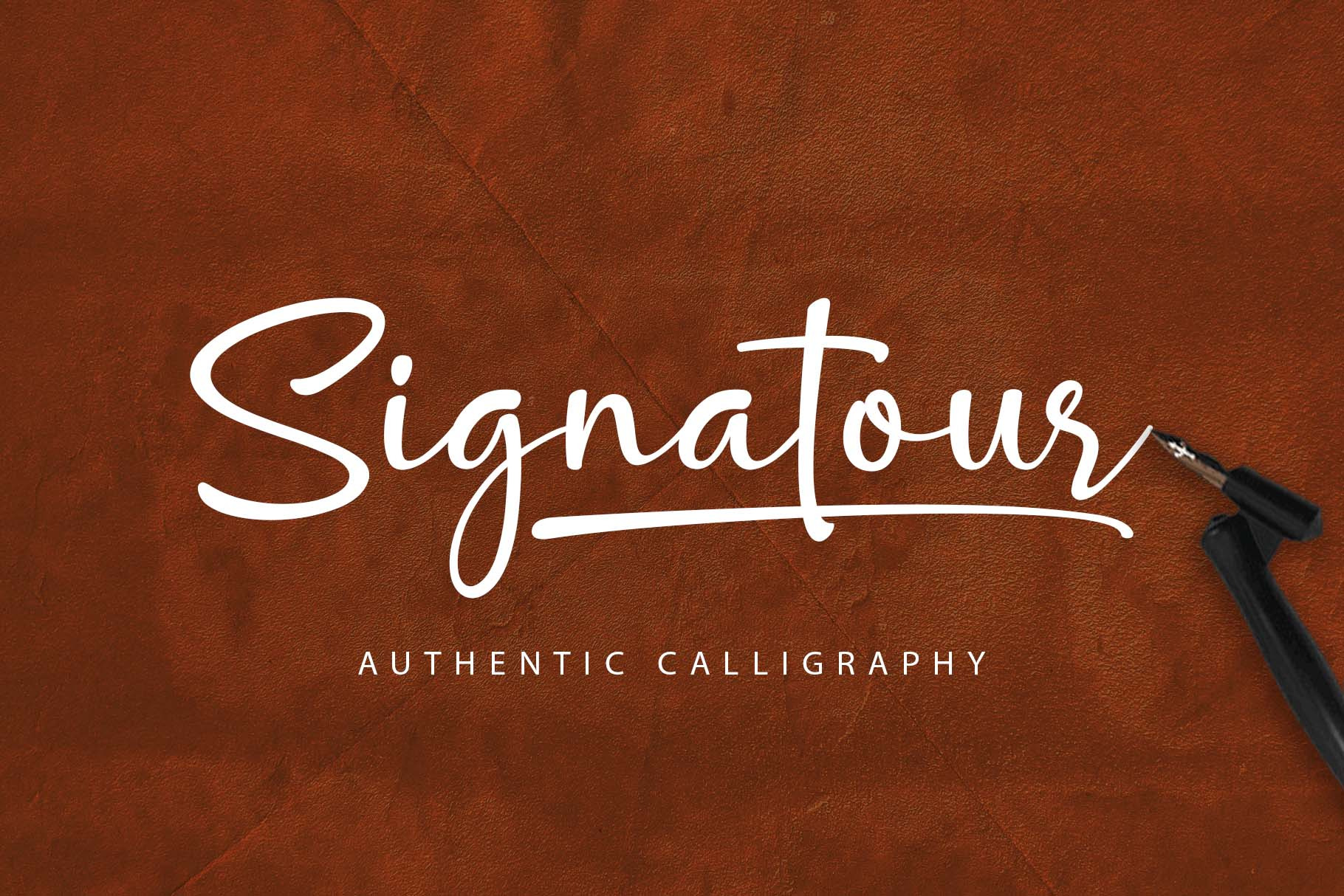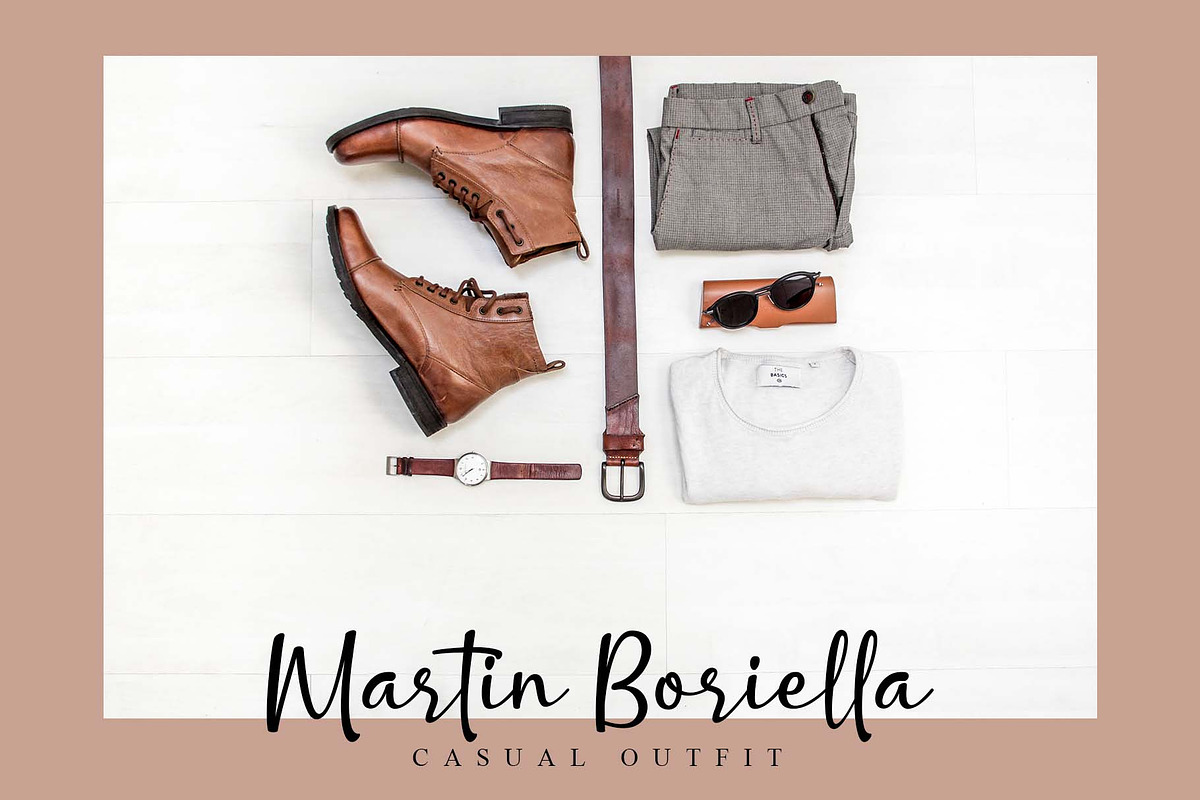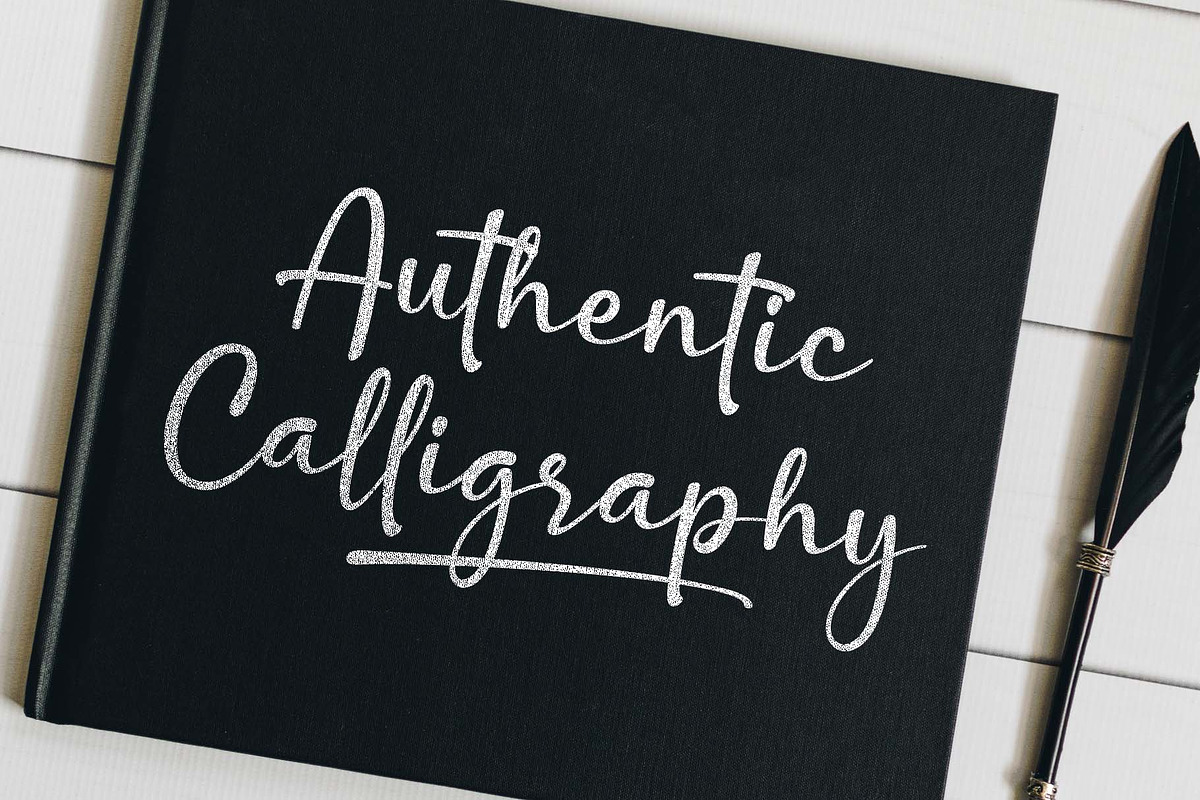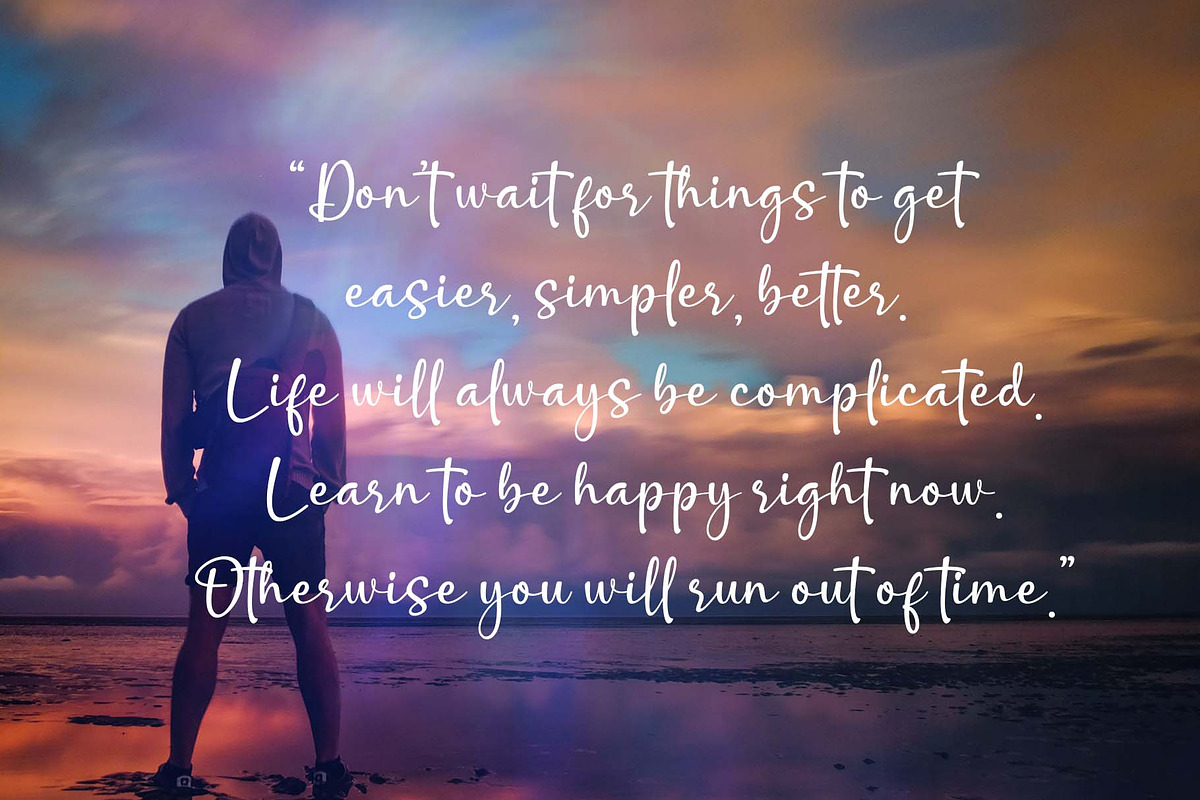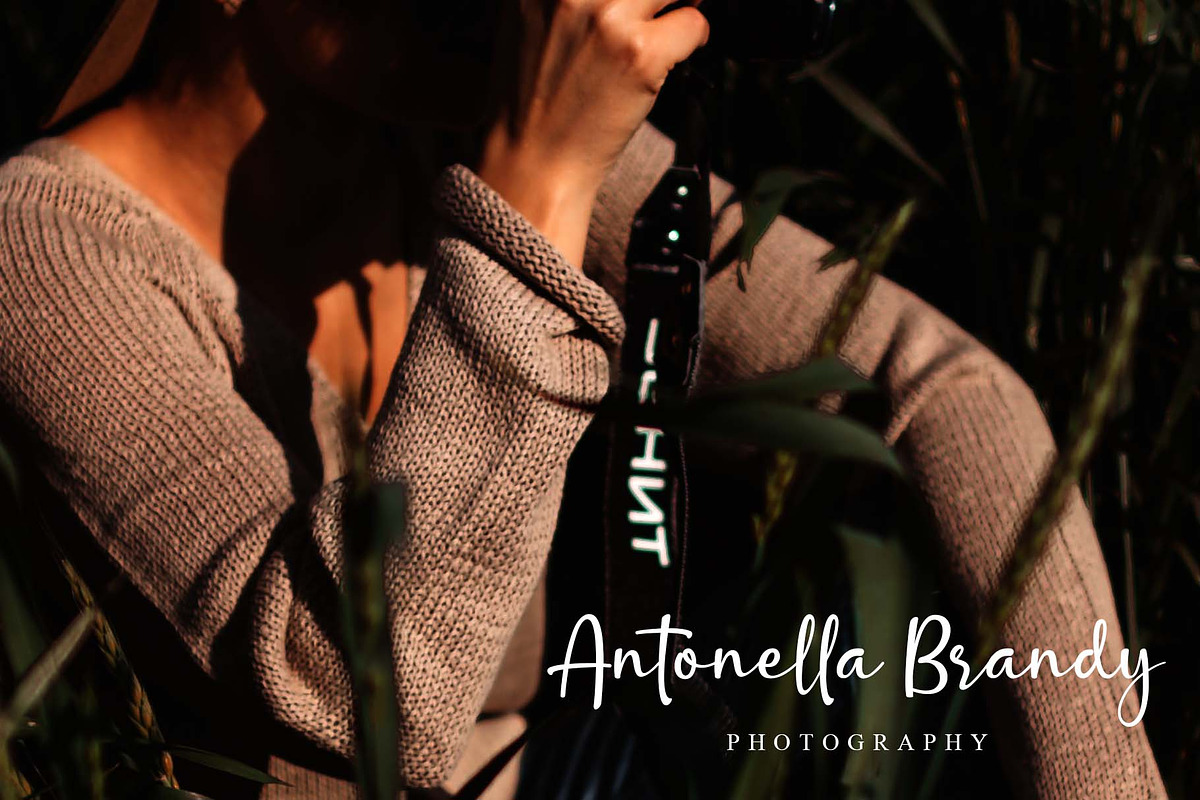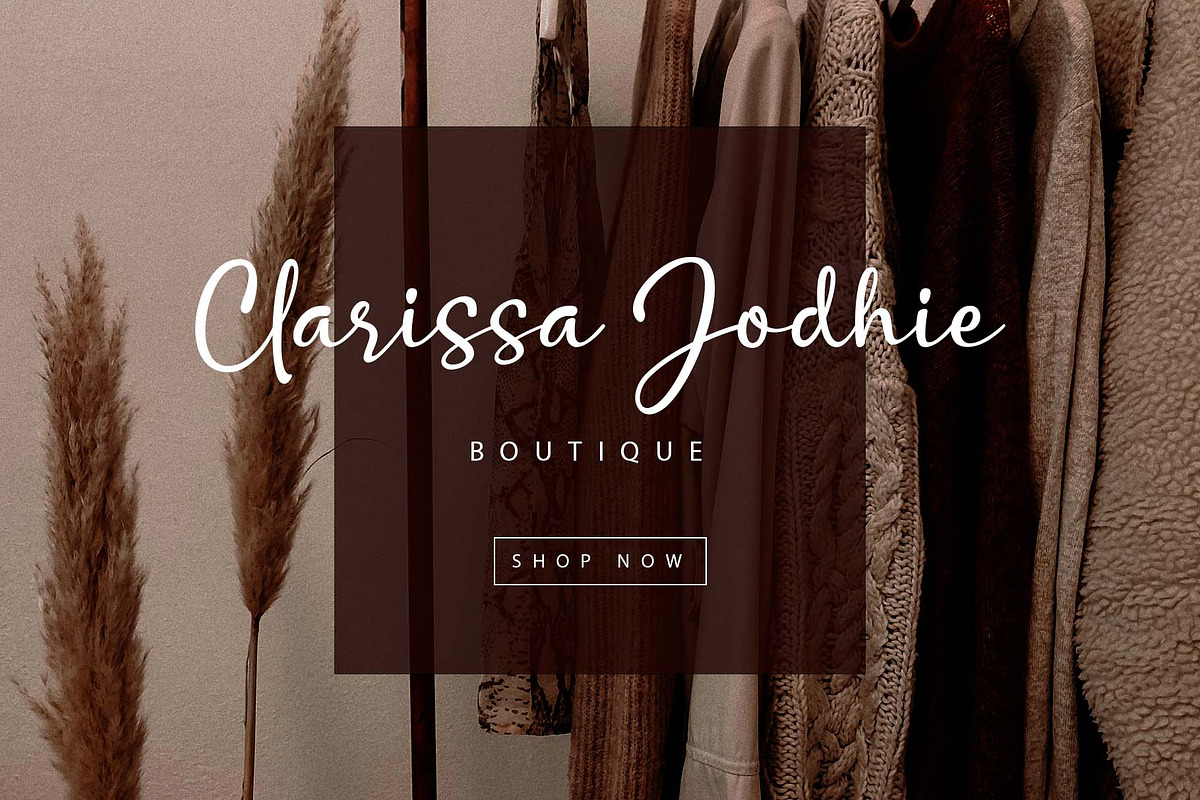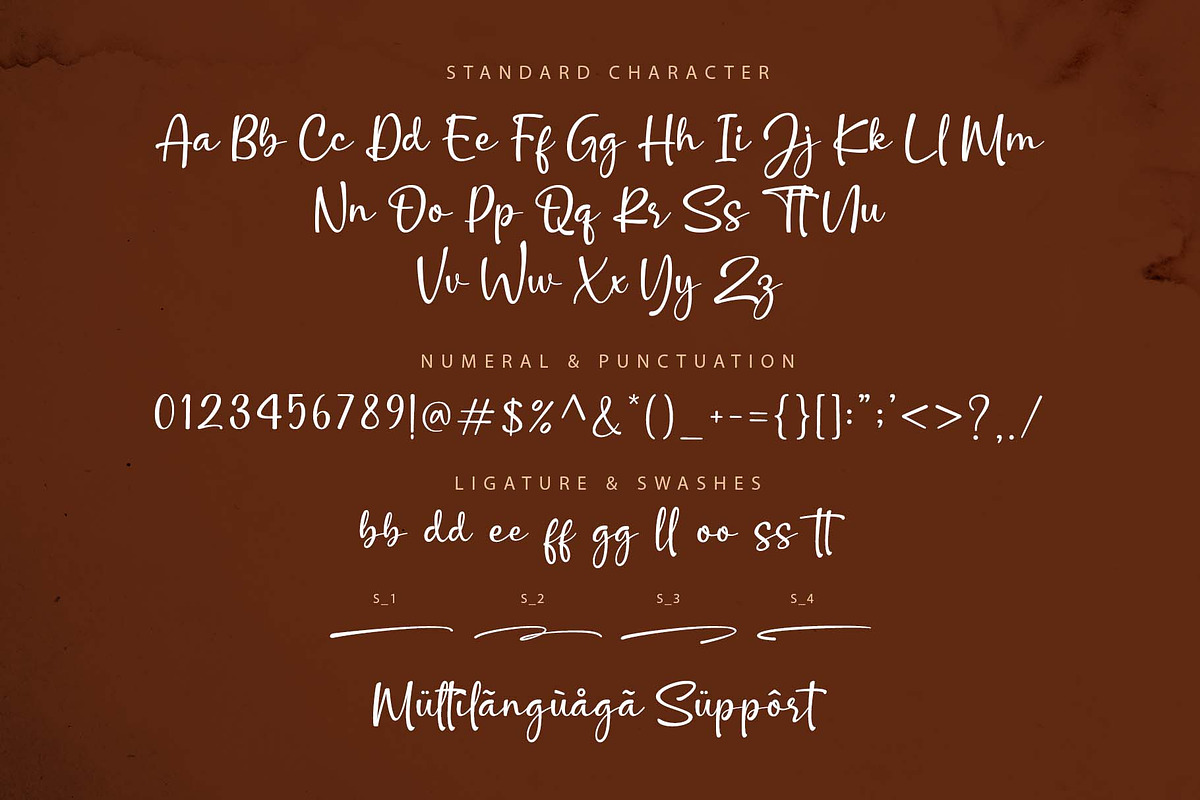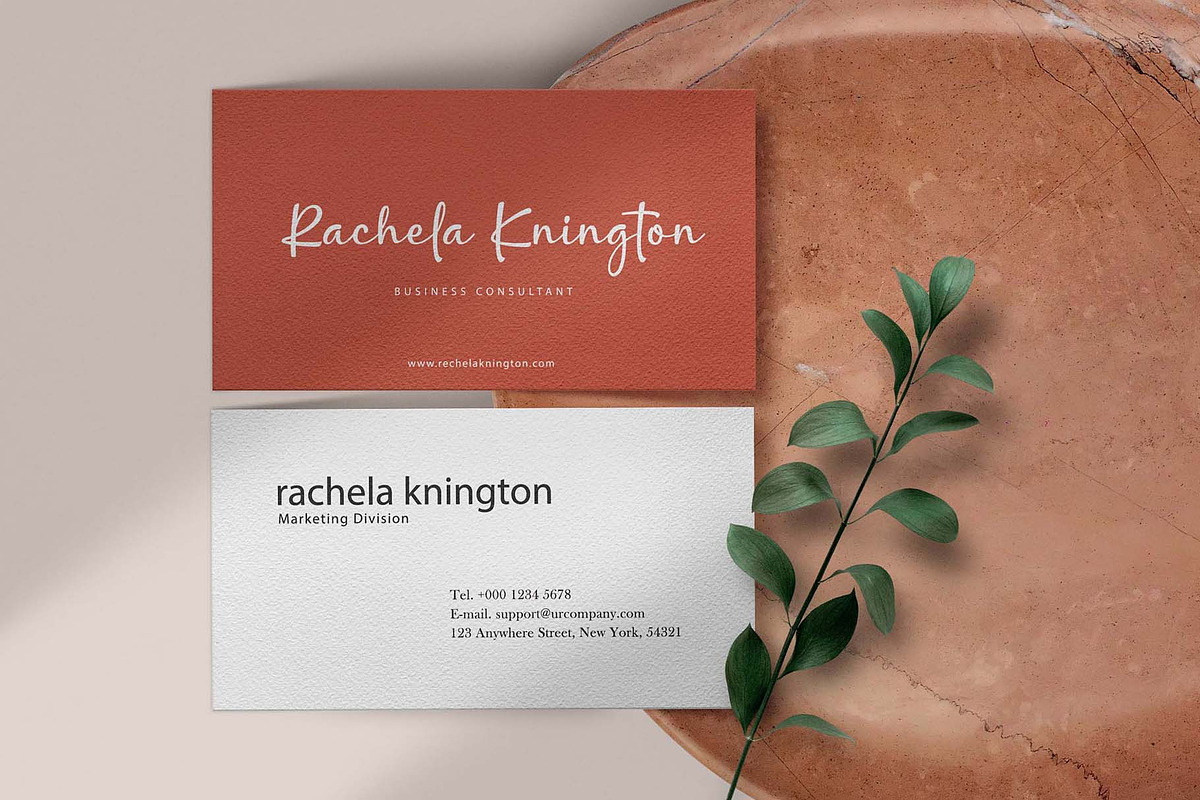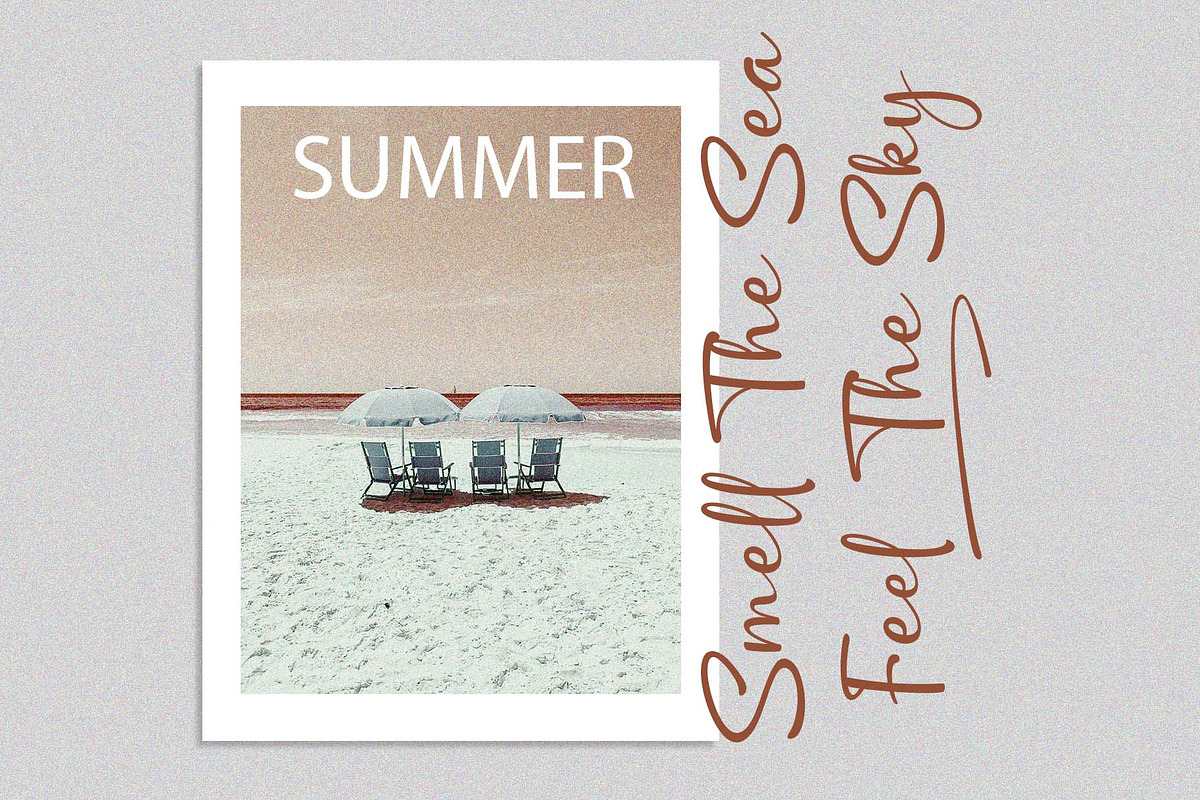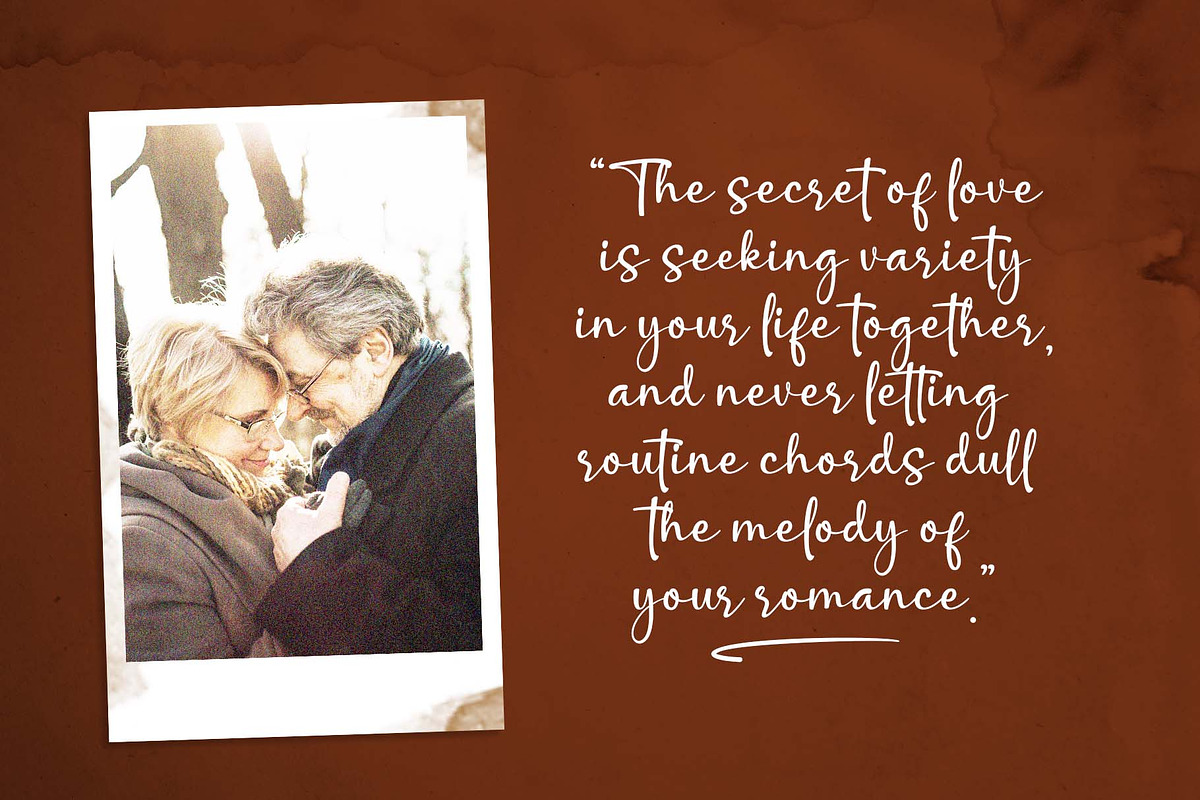
Signatour Font
Say hello to 'Signatour,' a new product that we recently launched, which carries the concept of a modern and informal style, with a thick characteristic on each of its glyphs, each glyph having a strong and unique character or shape so that it will offer a design a stronger impact. This font is ideal for logos, wedding invitations, business cards, website design, branding designs, posters, packaging, stationery, quotations, and other similar projects.